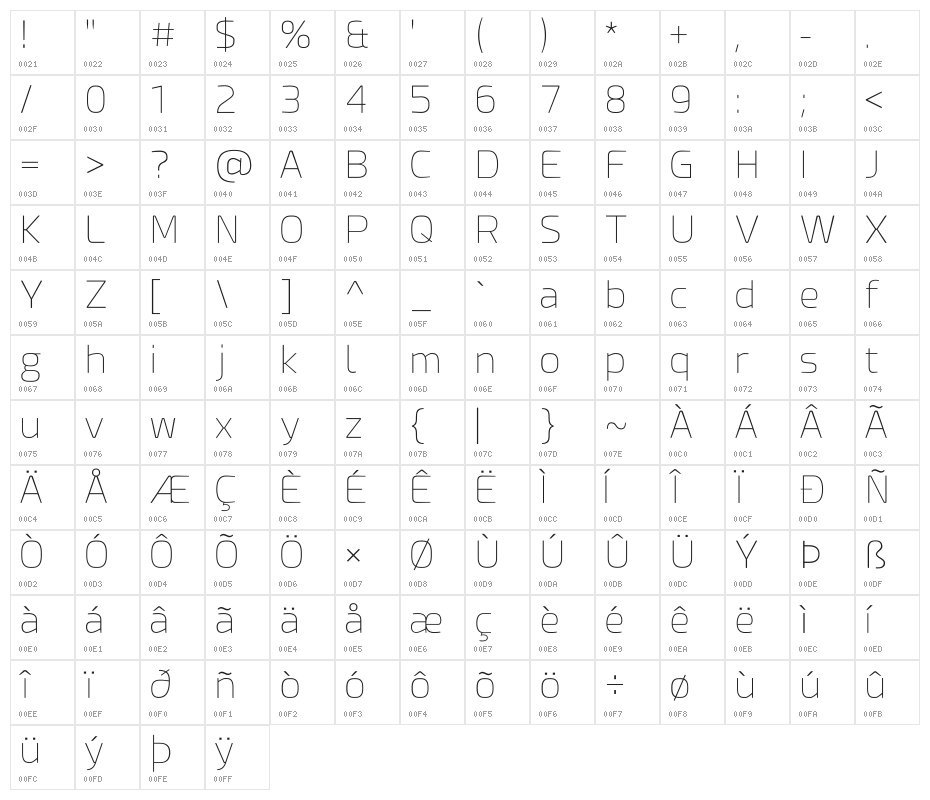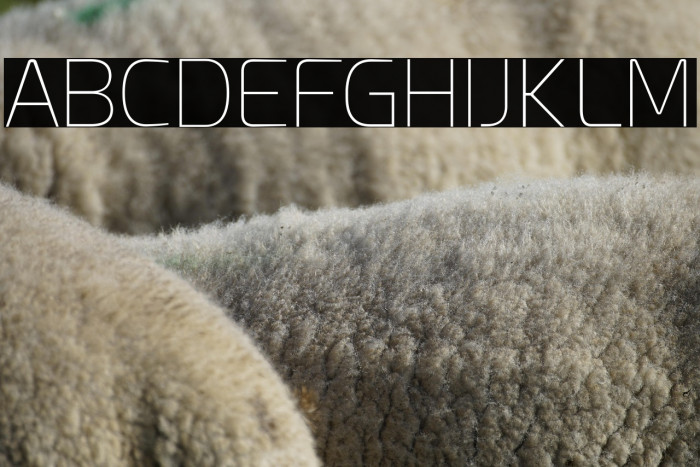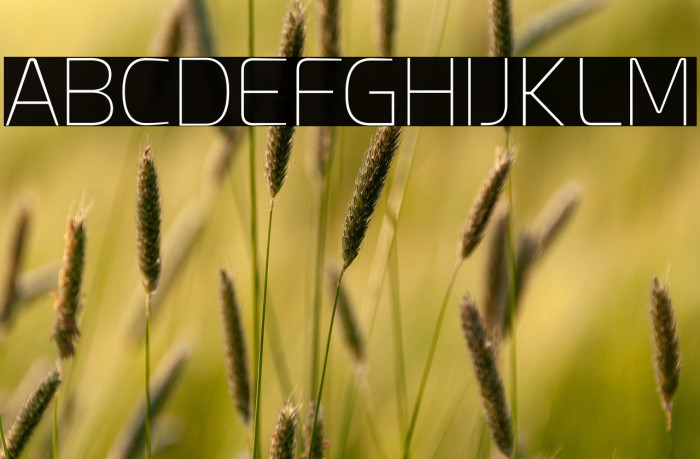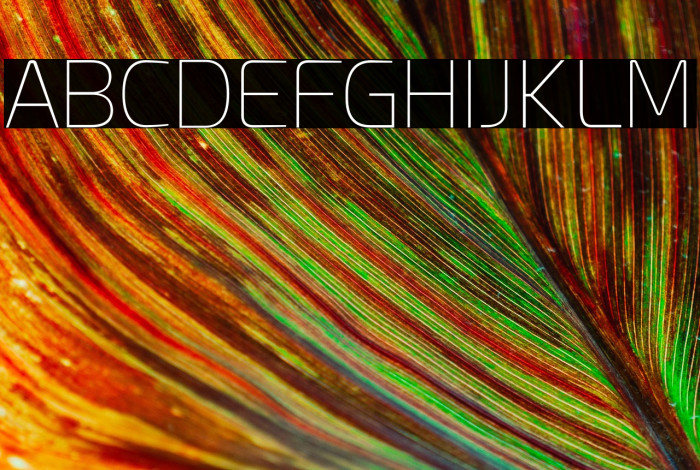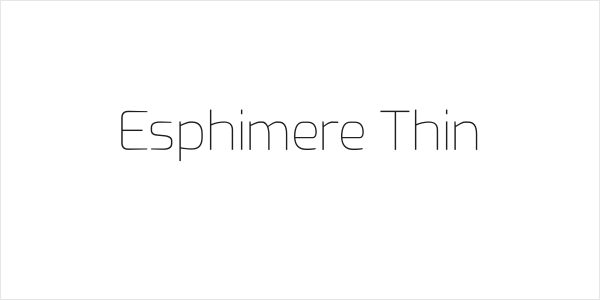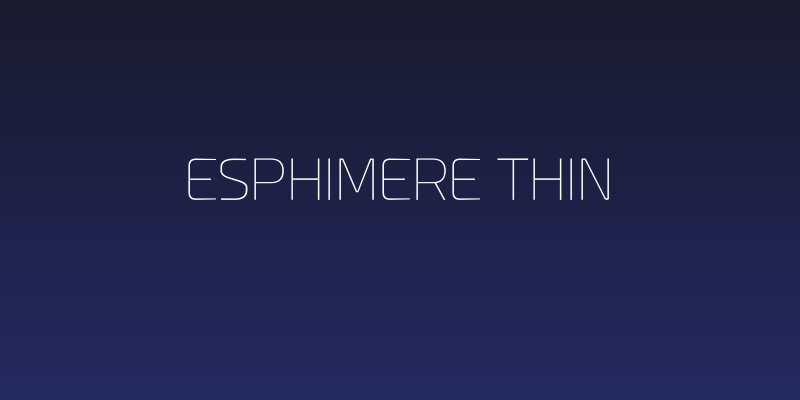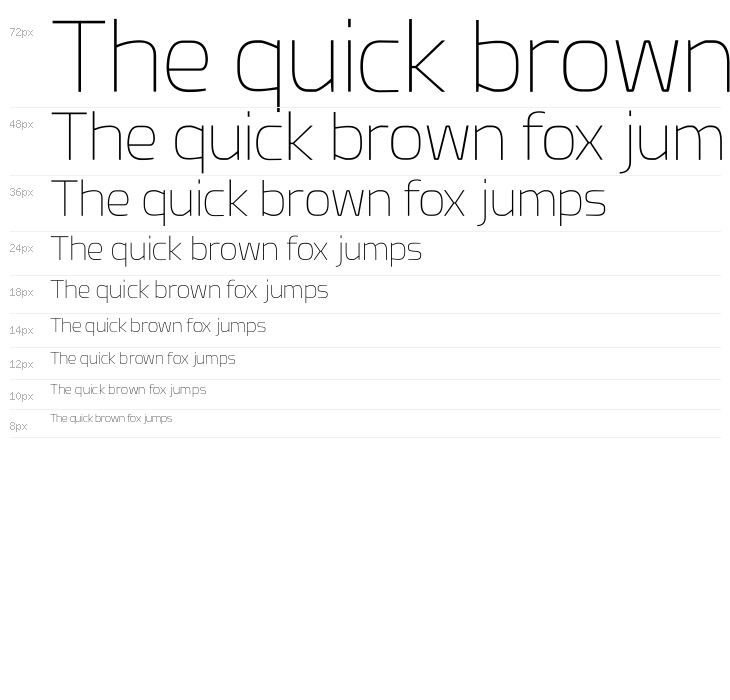
Esphimere Thin Font
Esphimere Thin Description
This font features a sleek, modern design with thin, clean lines that give it an elegant and minimalist appearance. The characters are evenly spaced, providing a balanced and airy feel. Its geometric structure is evident in the uniformity of the letterforms, making it highly legible and suitable for contemporary design projects. The uppercase and lowercase letters maintain a consistent style, with rounded edges that soften the overall look. The numerals and special characters are designed to match the font's streamlined aesthetic, ensuring cohesion across all text elements.
| Use Case | Headlines, Logos, Digital Interfaces |
| Proposed Projects | Ideal for modern branding, minimalist posters, tech-related designs, and digital interfaces. |